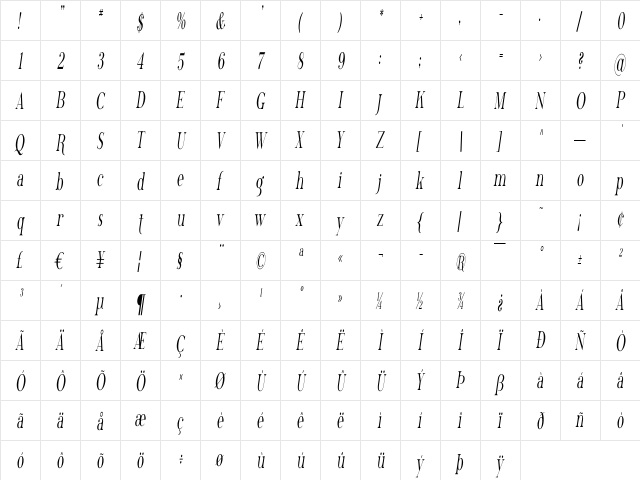
Phosphorus Trichloride Regular
| Designer | Derek Vogelpohl |
Design Context for Phosphorus Trichloride Typeface
Phosphorus Trichloride offers clean, dependable letterforms without strong stylistic allegiance, making it a practical choice for designers who need flexibility.